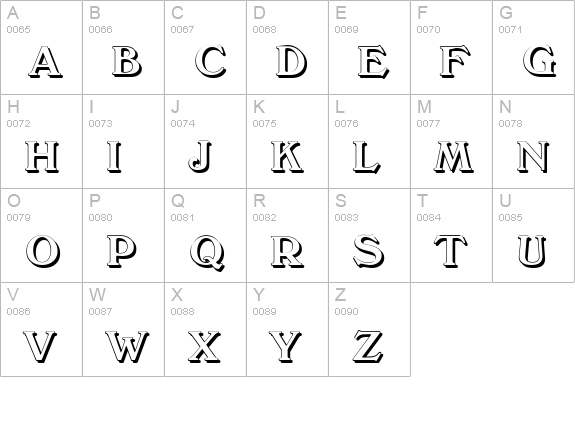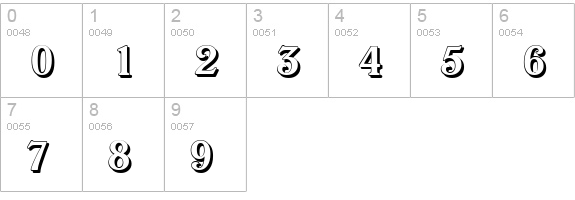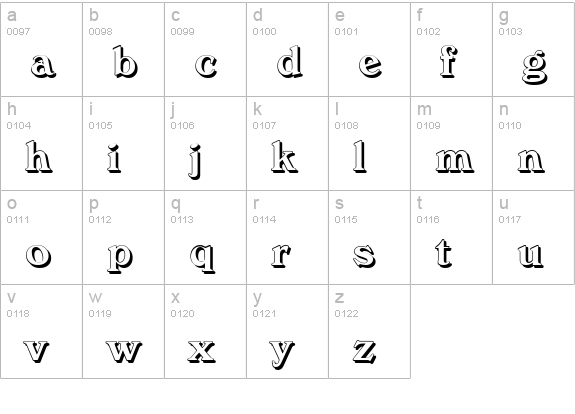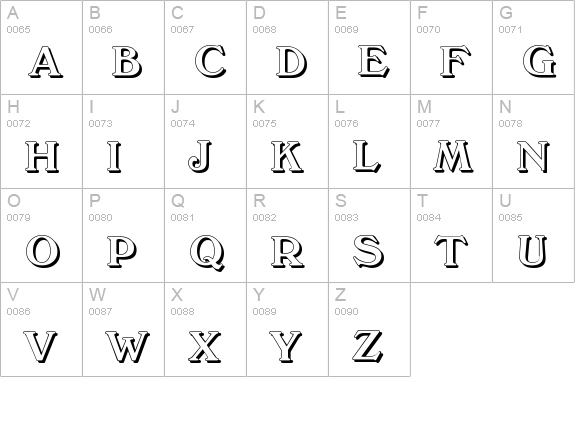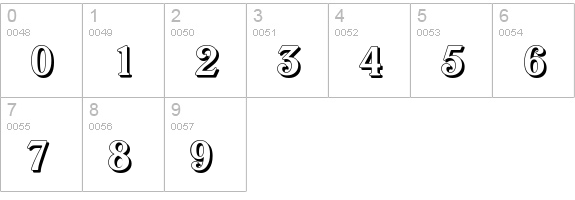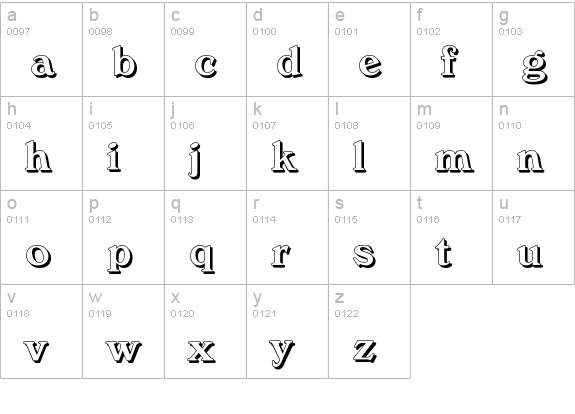
VeronaShadow-Medium-Regular is a balanced, medium-weight variant in the VeronaShadow typeface family \xE2\x80\x94 well suited to sub-headlines, navigation, and balanced editorial work.
VeronaShadow-Medium-Regular font is a stunning display typeface that exudes elegance and sophistication. Its intricate shadow details add depth and dimension to any design project, making it perfect for headlines, logos, and branding materials. This font strikes the perfect balance between classic and contemporary styles, making it versatile for various creative endeavors. The VeronaShadow-Medium-Regular font is now available for free download at FontsMarket.com. This means you can easily access and use this premium font without any cost, making it an excellent choice for designers, artists, and creatives looking to elevate their work. Don't miss out on the opportunity to enhance your projects with the VeronaShadow-Medium-Regular font's timeless appeal and unique charm. Download it today and let your creativity shine!